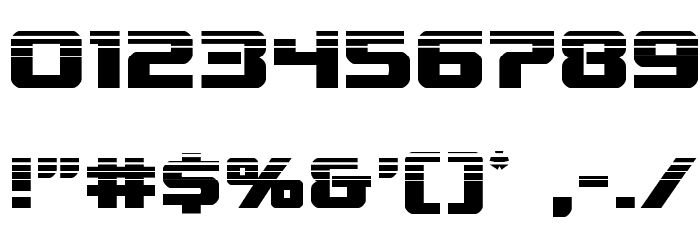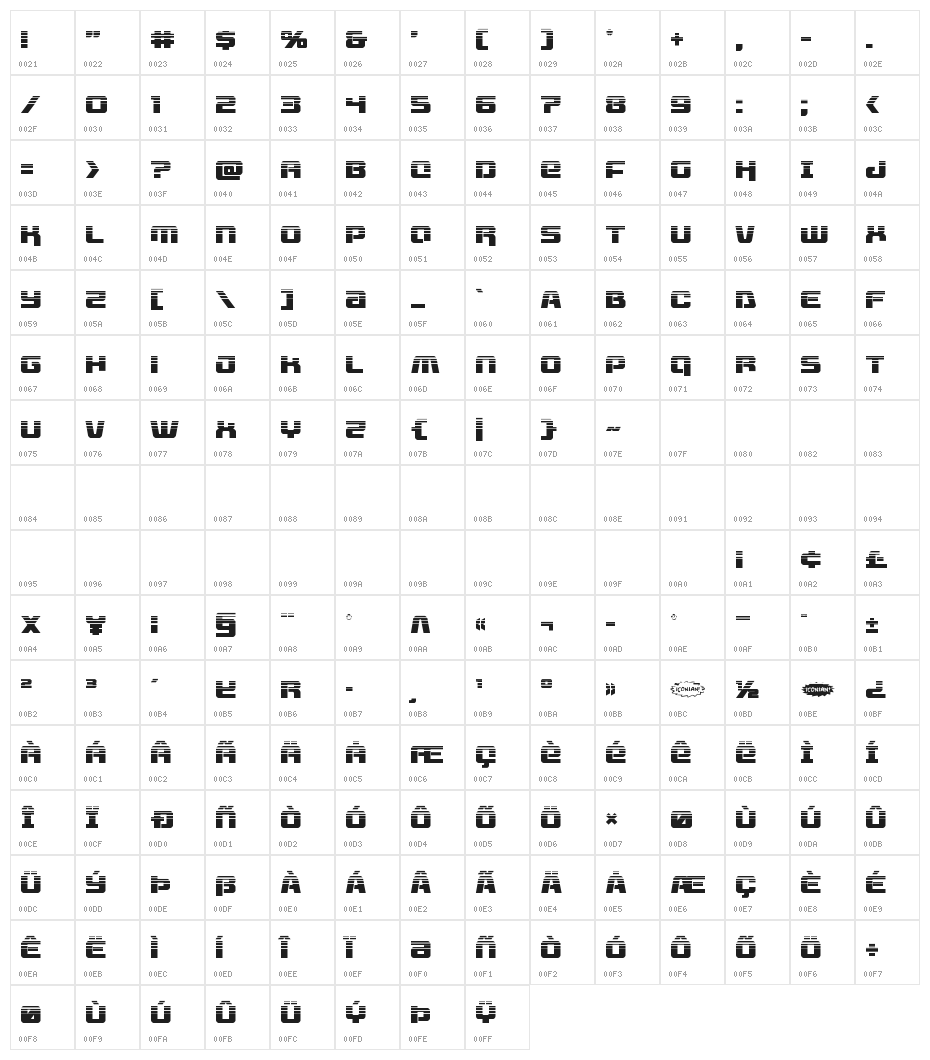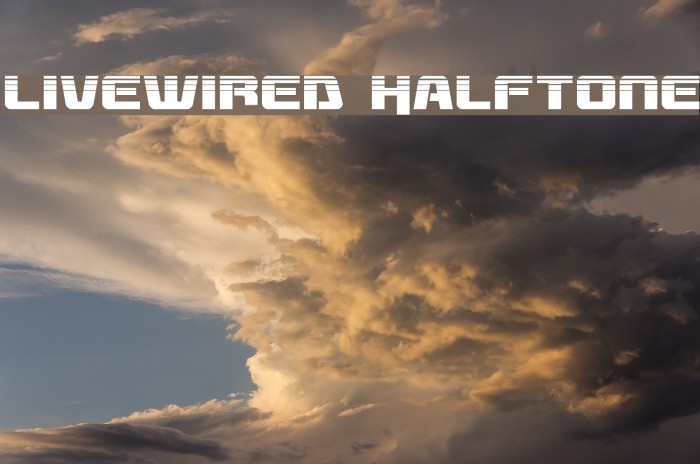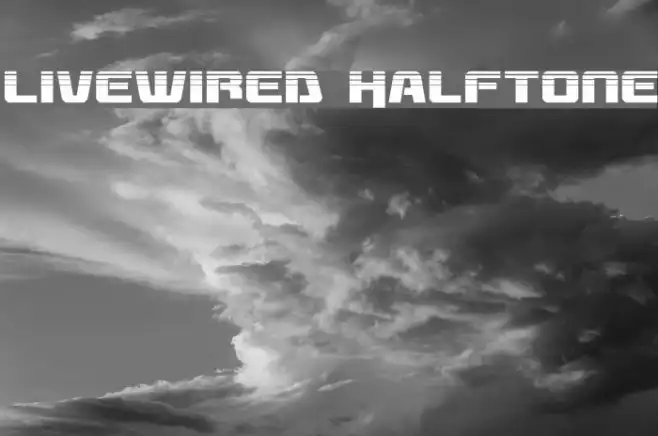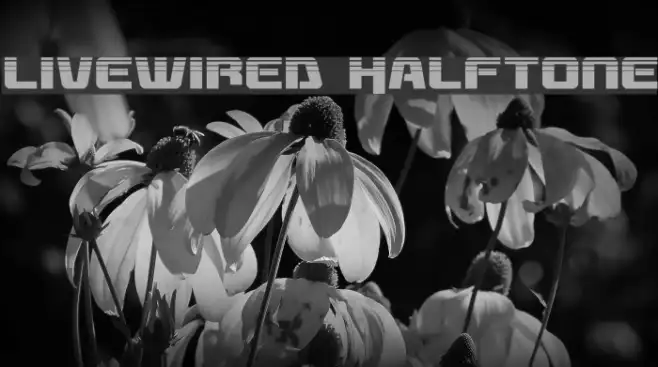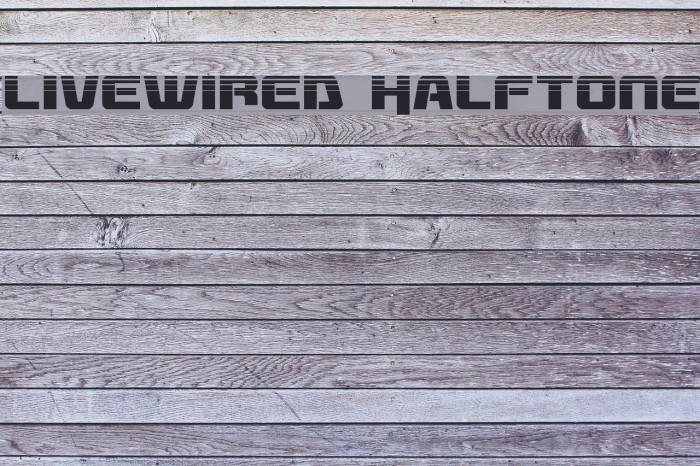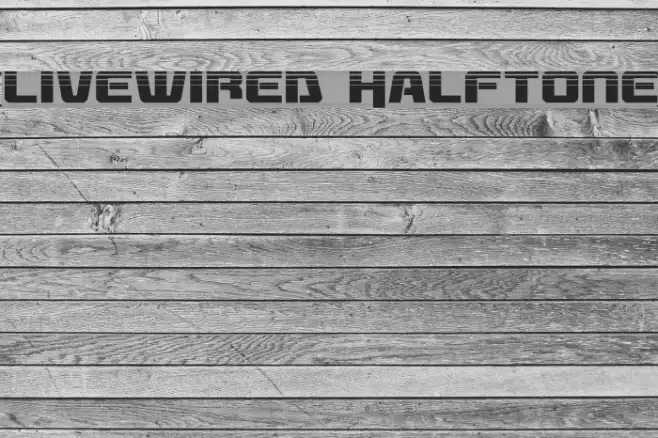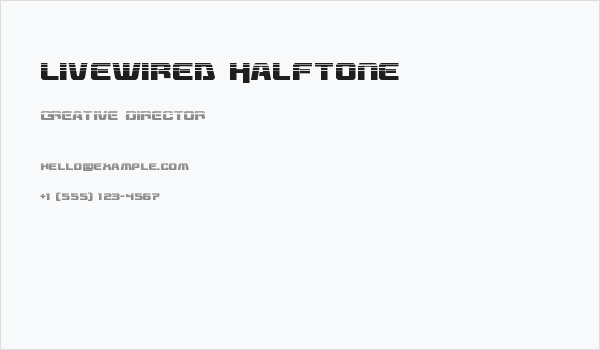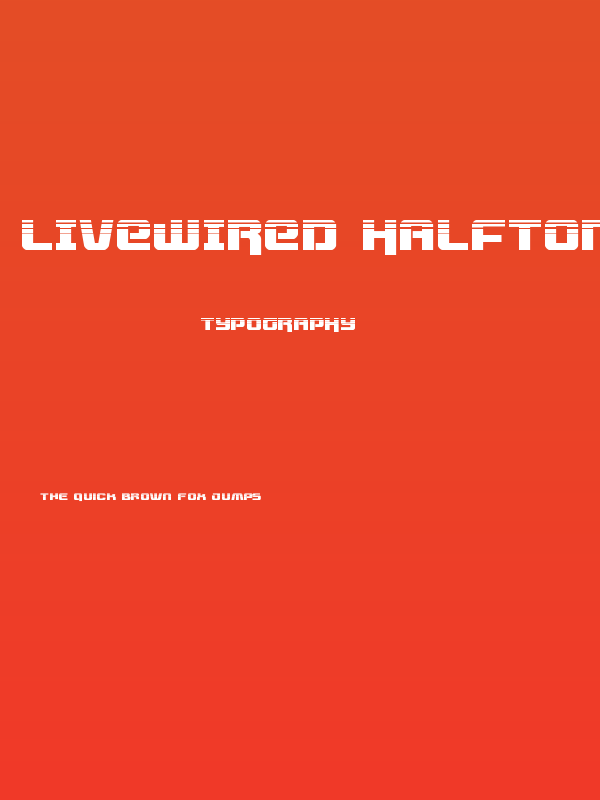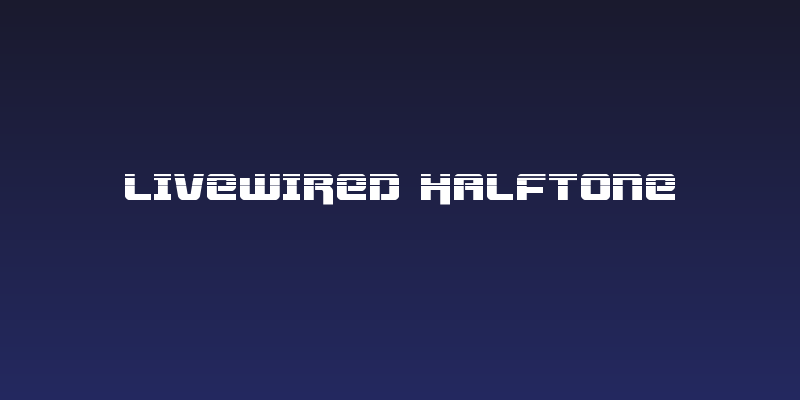
Livewired Halftone Font
Livewired Halftone Description
This font features a bold, futuristic design with a halftone effect that gives it a unique, digital appearance. The characters are constructed with a blocky, geometric style, incorporating horizontal lines that create a sense of movement and energy. The uppercase and lowercase letters maintain a consistent width, enhancing the uniformity of the design. The numerals and special characters follow the same stylistic approach, ensuring cohesion across all elements. This font is ideal for projects that require a modern, tech-inspired aesthetic.
| Proposed Projects | Ideal for tech branding, digital artwork, video game titles, and futuristic posters. |